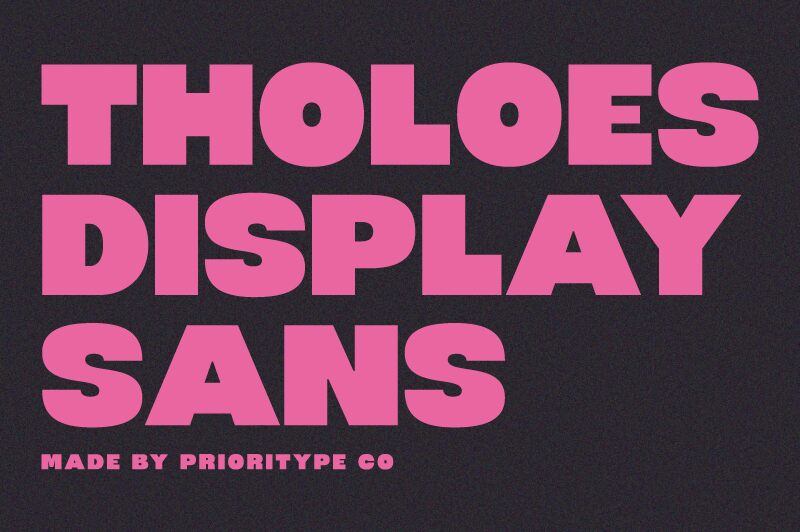
Tholoes DEMO
Tholoes font by Prioritype Co is an expanded bold sans serif font with a modern aesthetic and lots of impactful energy. Its geometric design allows for the uniform look and feel it has, which is obvious in all its characters. The strong presence makes it perfect for designs that require certain dominance or eye-catching effects.
Explore using Tholoes in fitting all sorts of advertisement materials, branding projects, headers and posters, website designs, logotypes, typographic magazines’ titles and paragraphs, social media platforms’ posts and content, etc. Download this free resource in TTF format then immediately start creating with this modern crafted typeface.